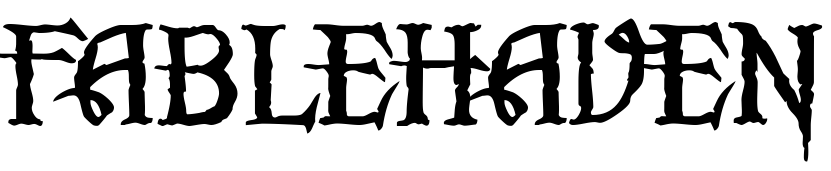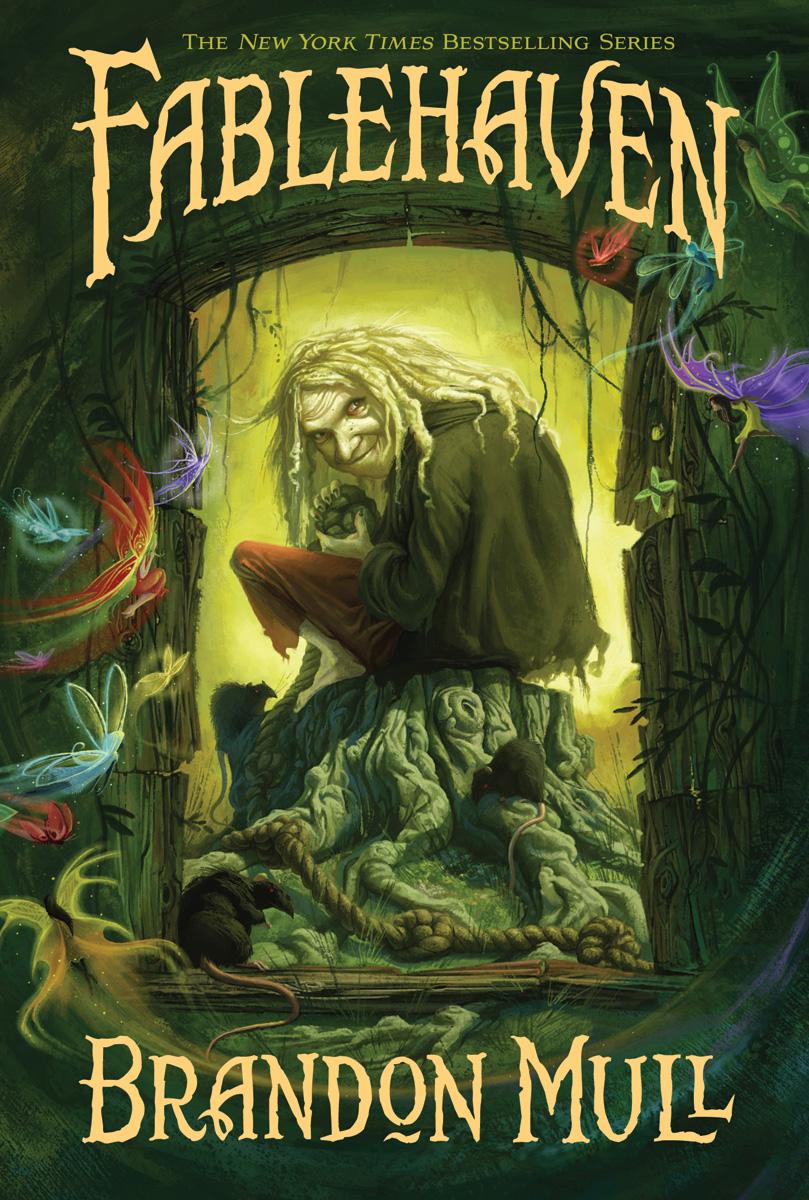
Fablehaven (novel) Font
BookFablehaven is a fantasy novel series written by Brandon Mull. It follows the story of two siblings, Kendra and Seth, who discover that their grandparents' property is actually a sanctuary for magical creatures. The series consists of five books: Fablehaven, Rise of the Evening Star, Grip of the Shadow Plague, Secrets of the Dragon Sanctuary, and Keys to the Demon Prison. The first book, FableHaven, was published in 2006, and its cover can be seen above.